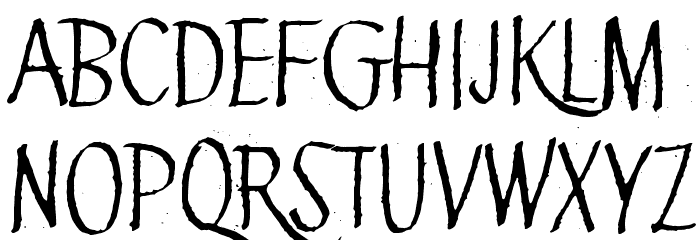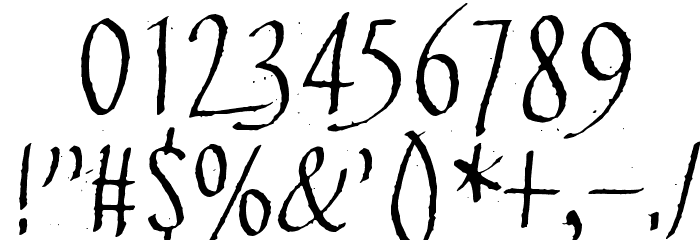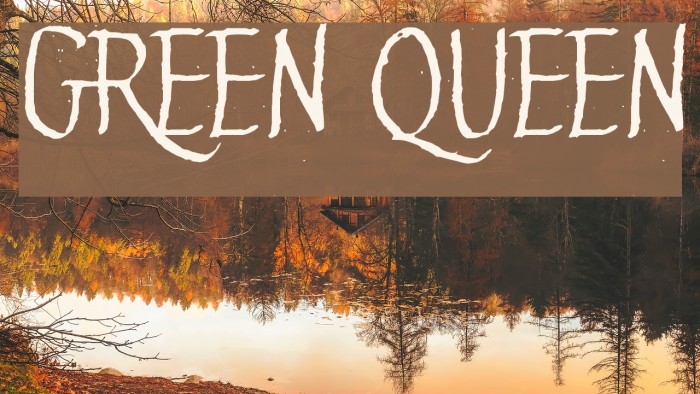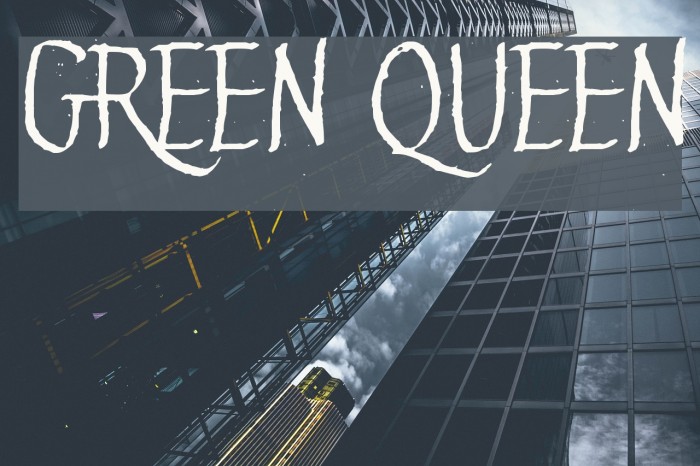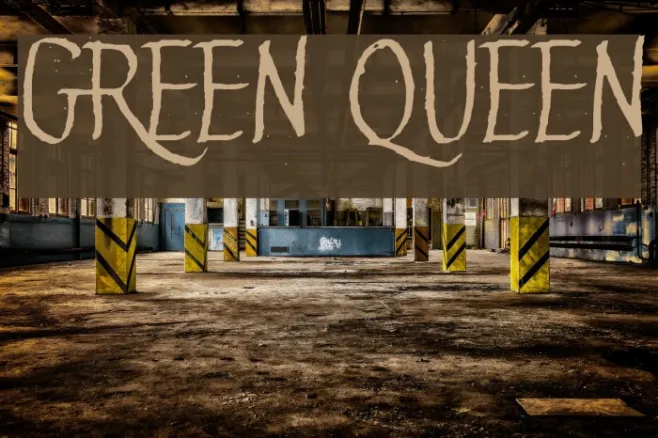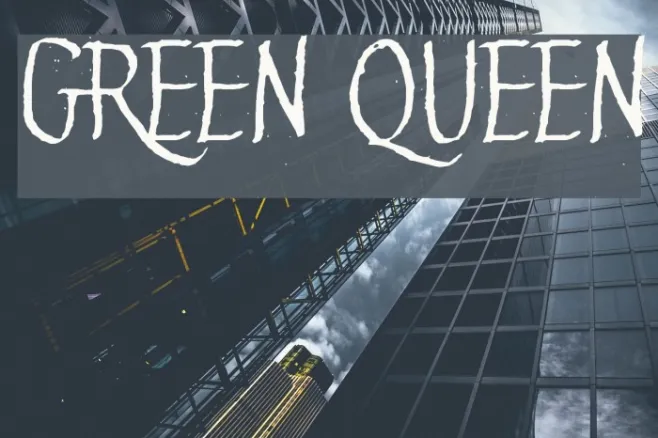
Green Queen Font
This font features a hand-drawn, organic style with a slightly irregular and playful appearance. The characters are elongated with a natural flow, giving them a unique and artistic feel. The strokes vary in thickness, adding to the handcrafted look. The uppercase letters are tall and slender, while the lowercase letters maintain a consistent style with a touch of whimsy. Numbers and special characters follow the same aesthetic, making the font versatile for creative projects. The overall design is reminiscent of a casual handwritten script, perfect for adding a personal touch to any design.
A hand-drawn, organic font with a playful and artistic style.
- Proposed Projects: Ideal for greeting cards, invitations, posters, and artistic branding projects.
- Use Case: Headlines, Artistic projects, Branding